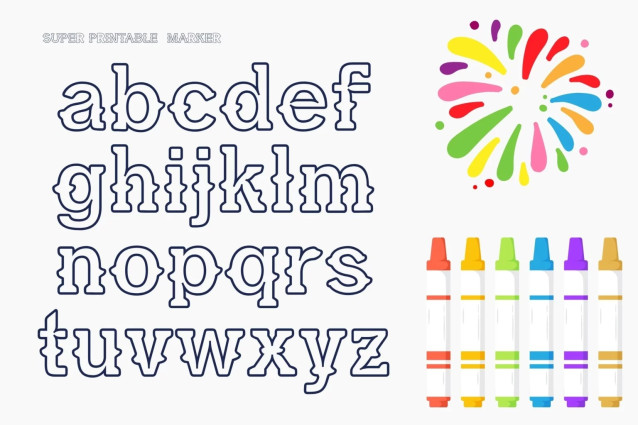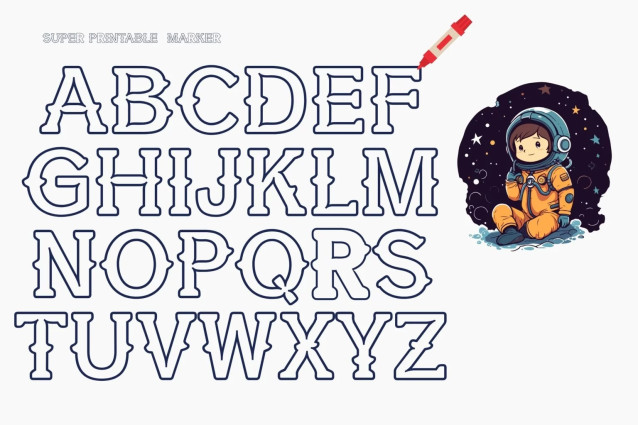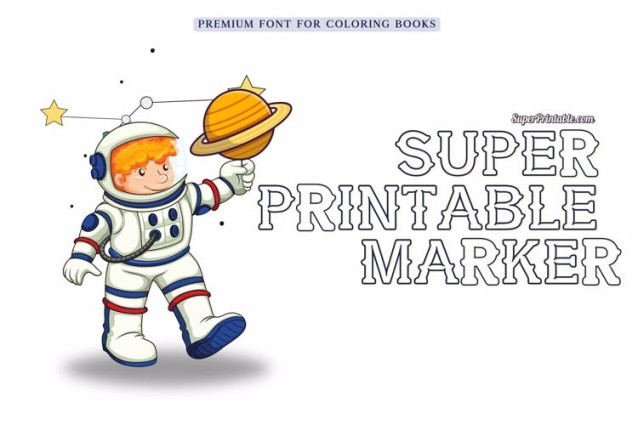
Super Printable Marker Font
Super Printable Marker Font – Designed just for teachers, parents, and creative makers, this hand-drawn, outline-style marker font is made to be colored in, traced, or used for standout headlines. It’s super easy to use, ultra-legible, and packed with fun personality—absolutely perfect for kids’ activities, school worksheets, coloring books, and craft projects.